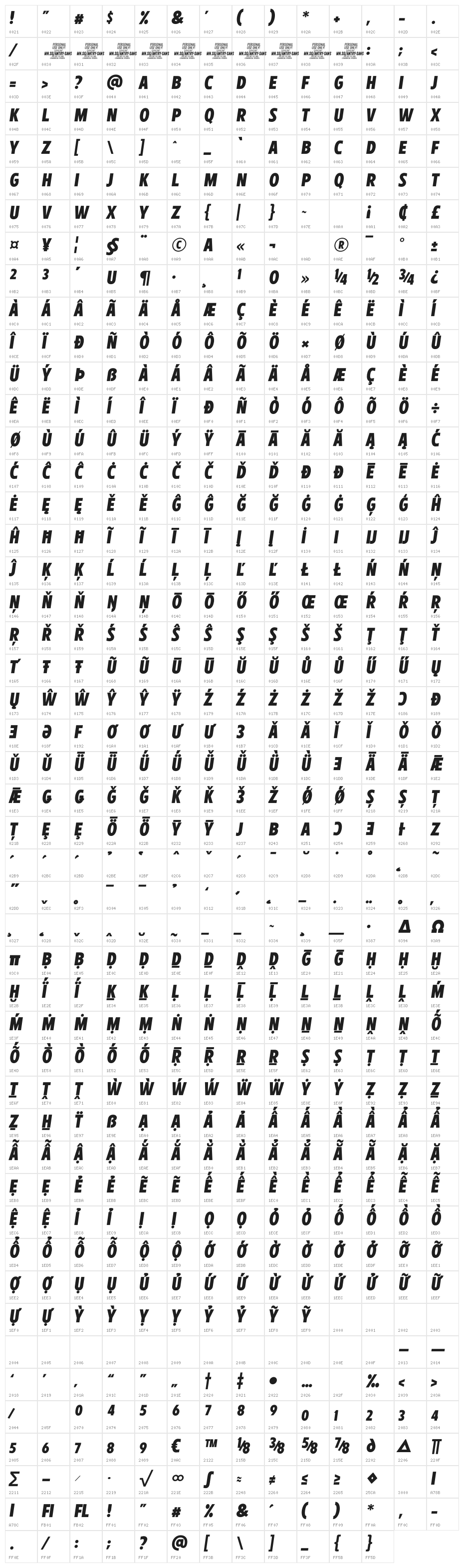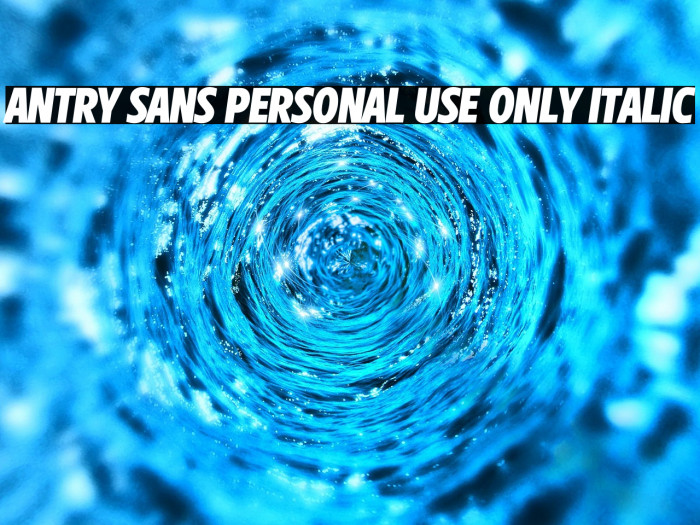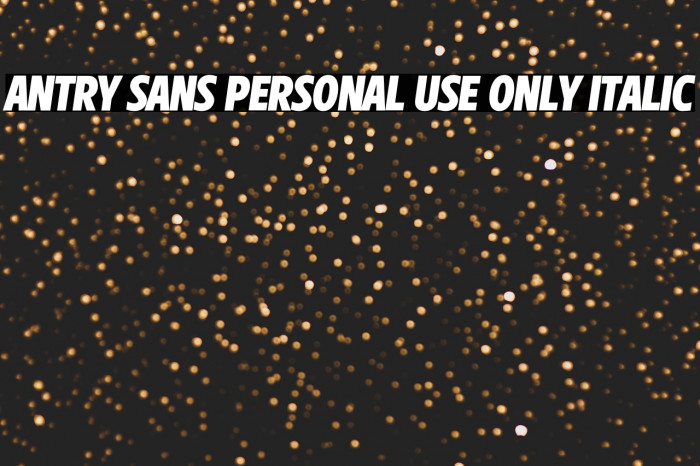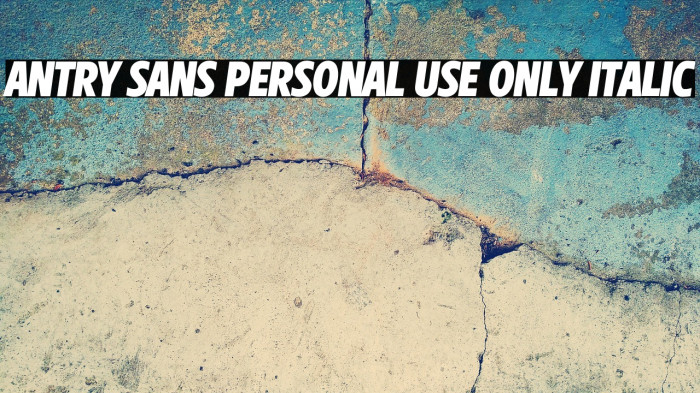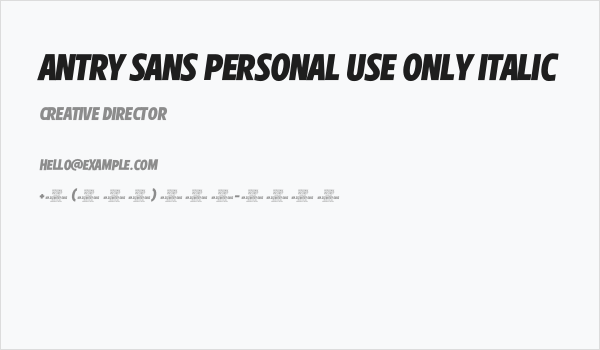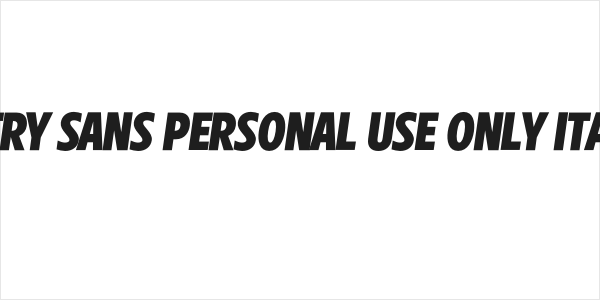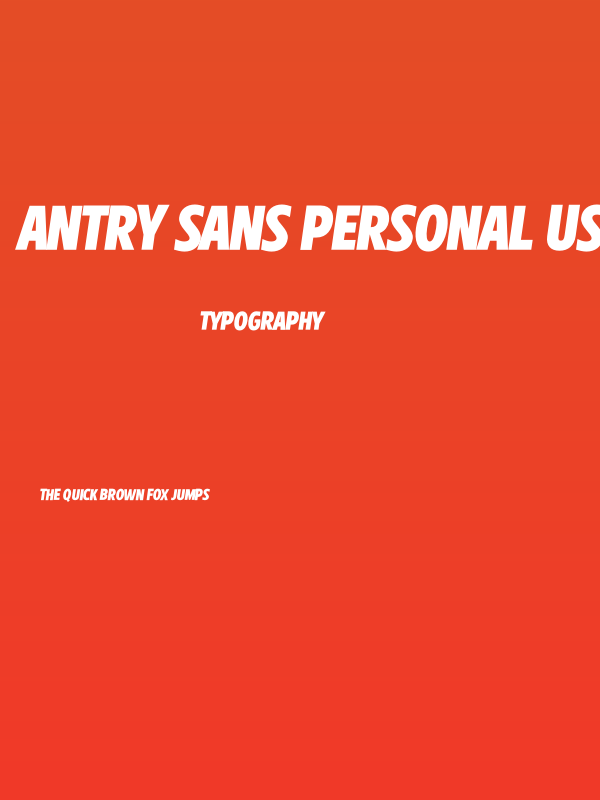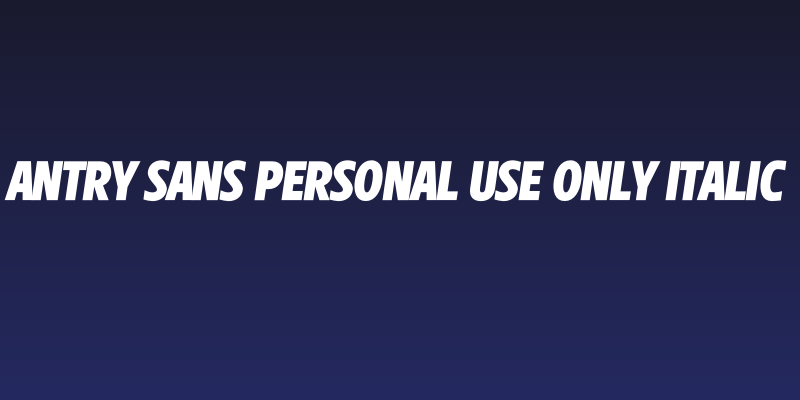
Antry Sans PERSONAL USE ONLY Italic Font
Antry Sans PERSONAL USE ONLY Italic Description
This font features a bold and dynamic sans-serif style with a strong italic slant, giving it a sense of movement and urgency. The characters are thick and robust, making them highly legible and impactful. The uppercase and lowercase letters maintain a consistent weight, providing a uniform appearance. The numbers and special characters are designed to match the boldness of the alphabet, ensuring a cohesive look across all text. The font's modern aesthetic is suitable for a variety of design projects that require a strong visual presence.
| Proposed Projects | Ideal for headlines, posters, branding, and advertising where a strong, impactful font is needed. |